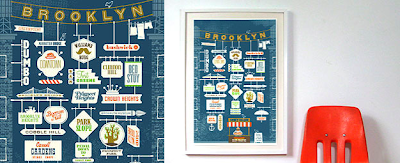
TypeFace Tuesday :: Jim Datz for Three Potato Four
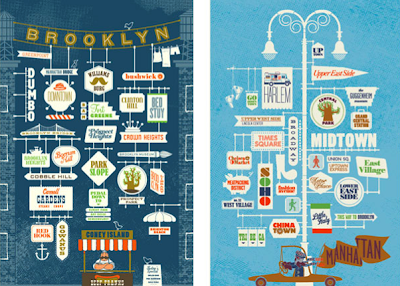
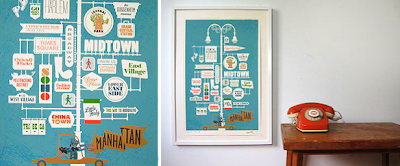
Awesome limited-edition city prints by artist Jim Datz for Three Potato Four! I love the happy, urban vibe.
A collaboration between Three Potato Four and designer Jim Datz, these posters of Brooklyn and Manhattan combine several of our loves - typography, color, 50's inspired illustrations, and urban signage.